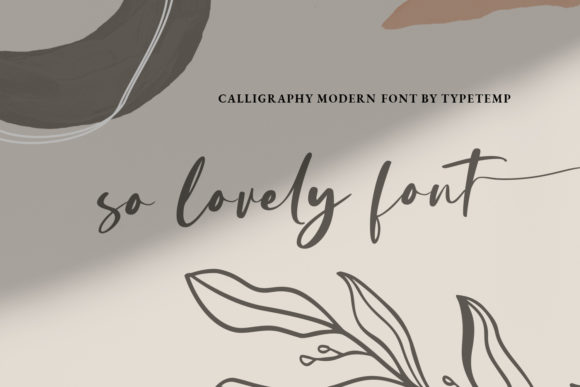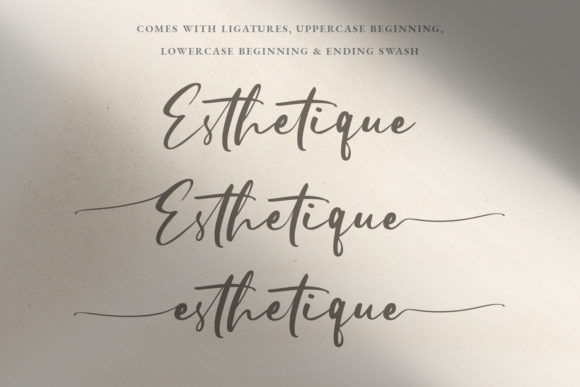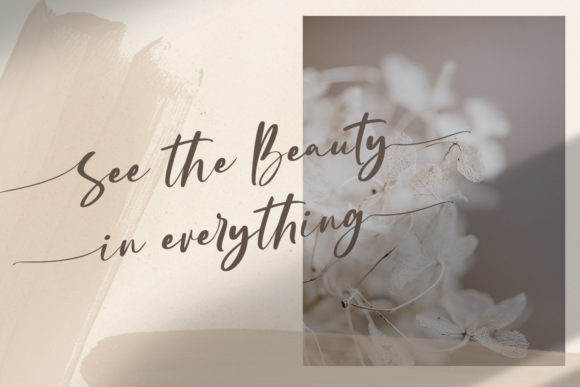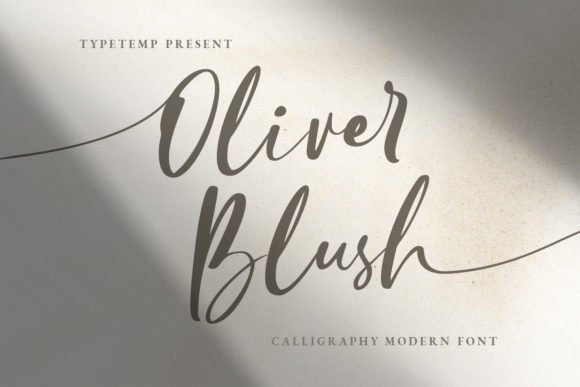
Introduction to Oliver Blush Font
Oliver Blush is an incredibly relaxed, delicate and timeless handwritten font.
Key Features of Oliver Blush Font
Why Choose Oliver Blush Font?
Oliver Blush Font offers exceptional quality and versatility, making it a valuable addition to your design toolkit. Whether you’re creating for personal projects or commercial use, Oliver Blush Font delivers professional results.